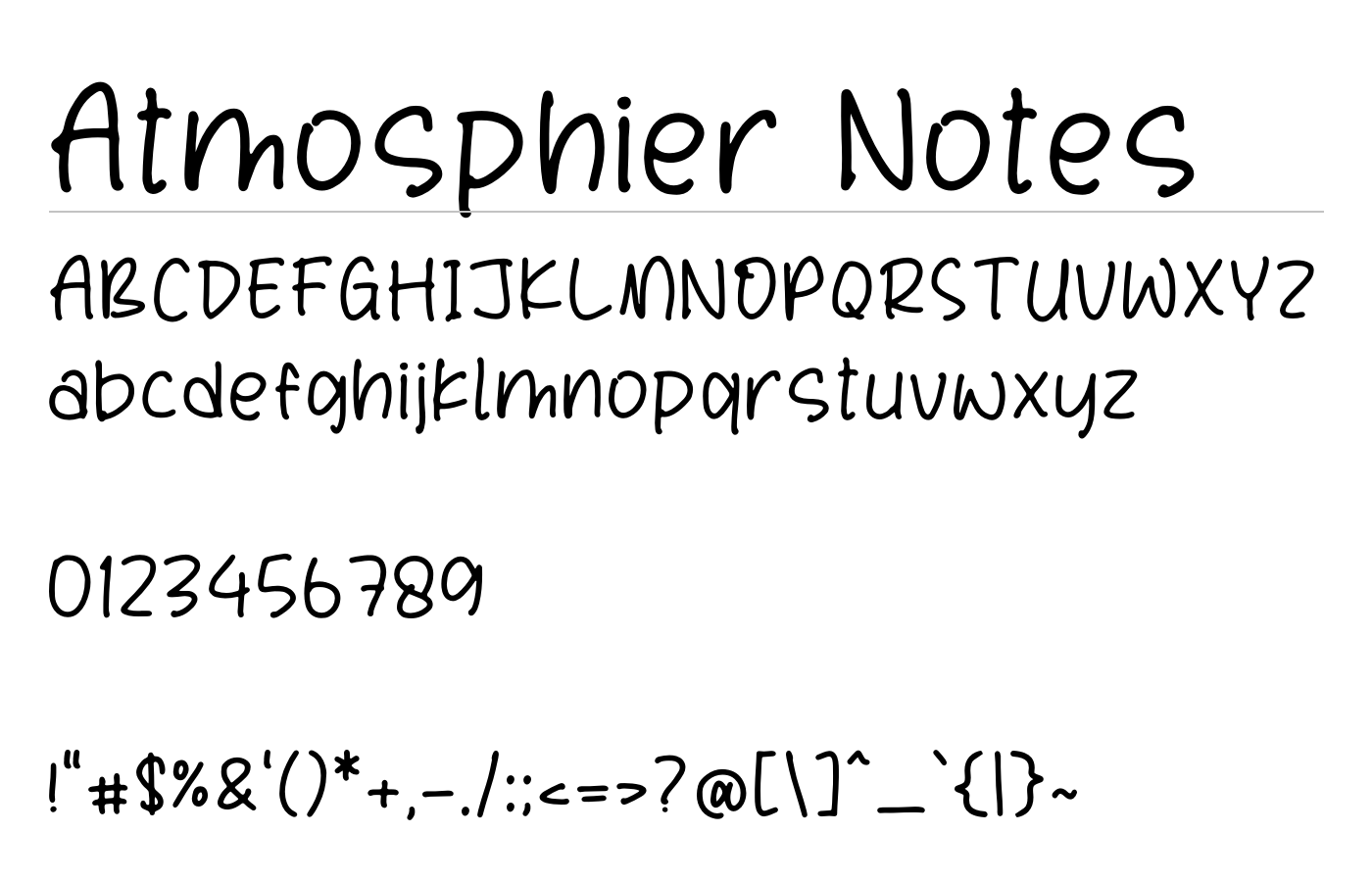
Atmosphier Notes is a playful, handwritten sans serif font that feels casual and approachable with its slightly irregular strokes and tall x-height. Its light weight and open spacing make it perfect for friendly, informal designs like personal notes, children’s books, or creative branding that needs a warm, human touch. This font works well in headlines, invitations, and social media graphics where a relaxed and personal vibe is desired.
Atmosphier Notes Font
About Atmosphier Notes Font